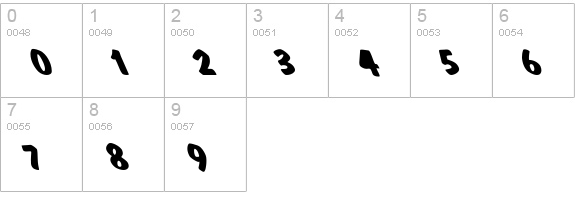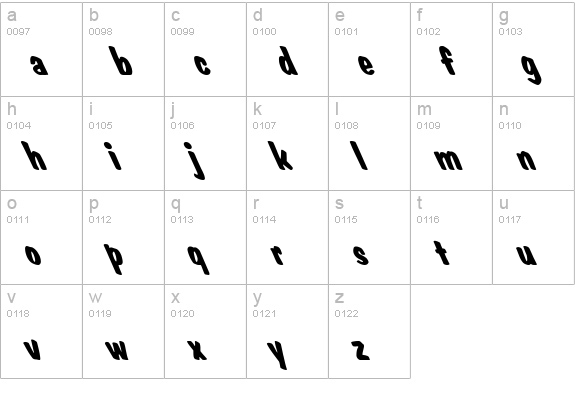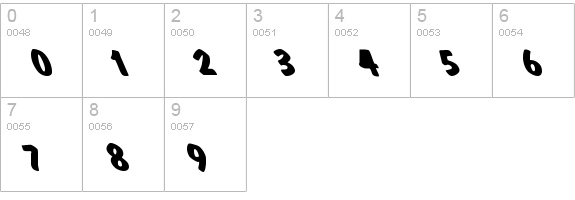
Dom Casual Extreme Lefty Font Details
Dom Casual Extreme Lefty font is a whimsical and fun typeface that adds a playful touch to any design project. With its exaggerated curves and off-kilter slant, this font is sure to make a statement. Perfect for creative projects, branding, and more, Dom Casual Extreme Lefty font is a versatile choice for those looking to add a unique flair to their work. Best of all, this font is available for free download at FontsMarket.com. Whether you're a designer, artist, or hobbyist, you can easily access and use Dom Casual Extreme Lefty font in your projects without any cost. Don't miss out on this opportunity to enhance your designs with this eye-catching and distinctive typeface. Download it today and let your creativity shine!